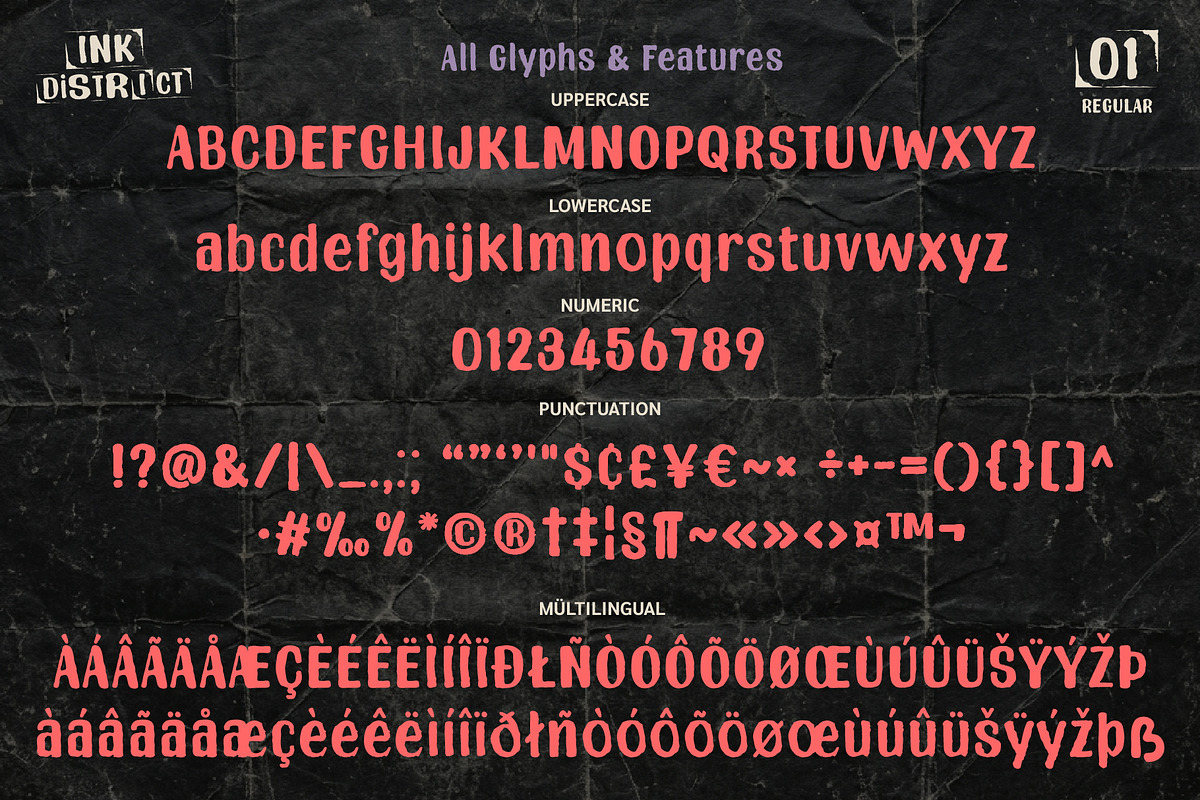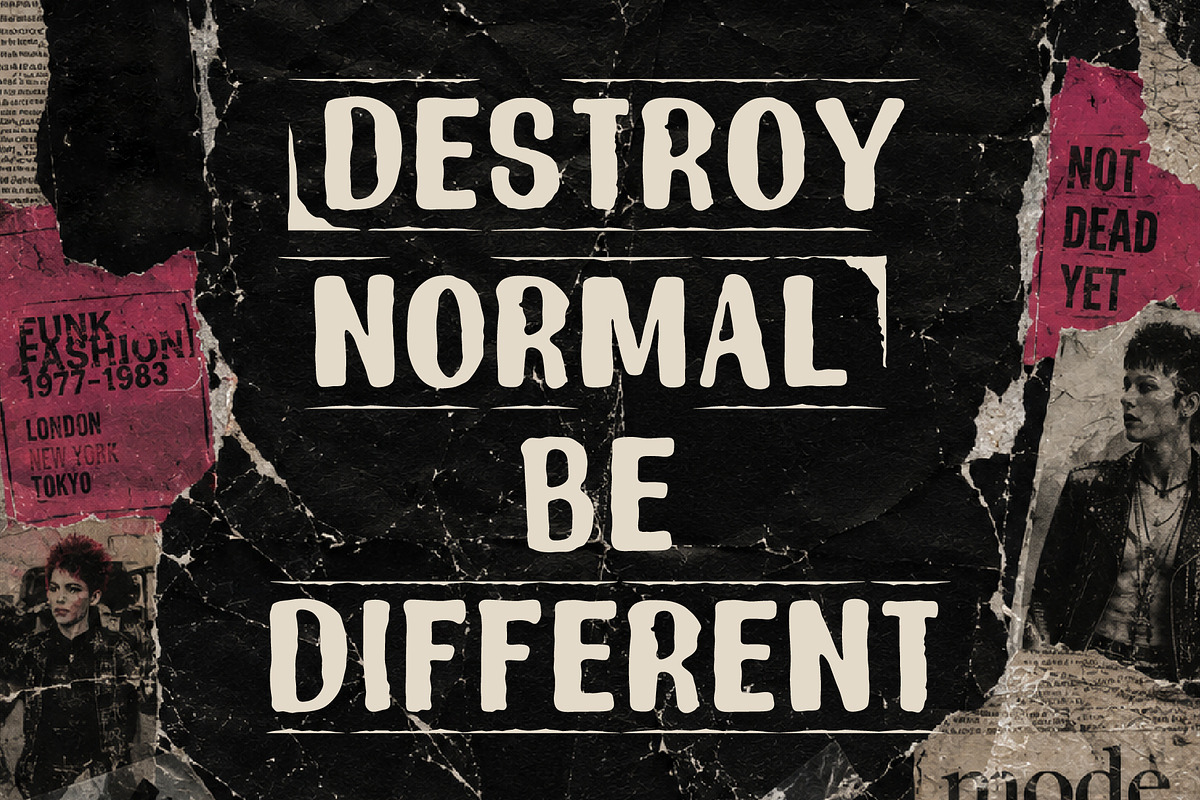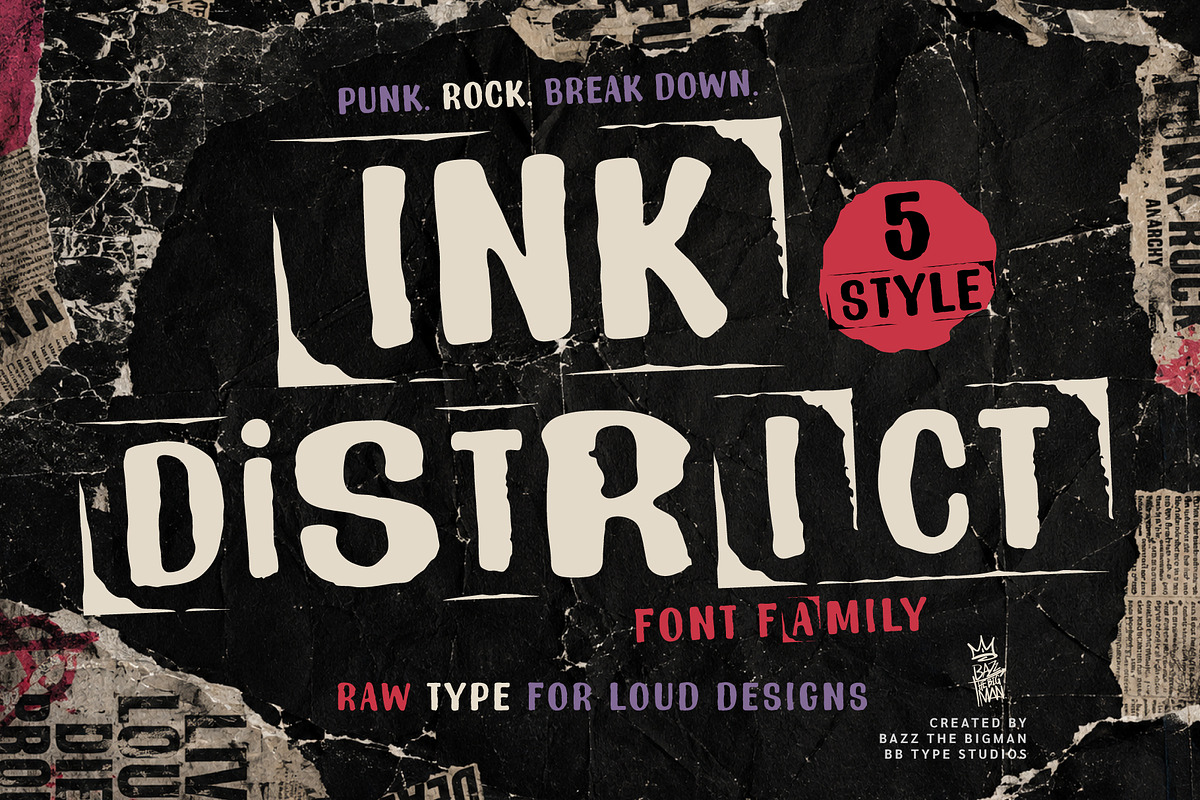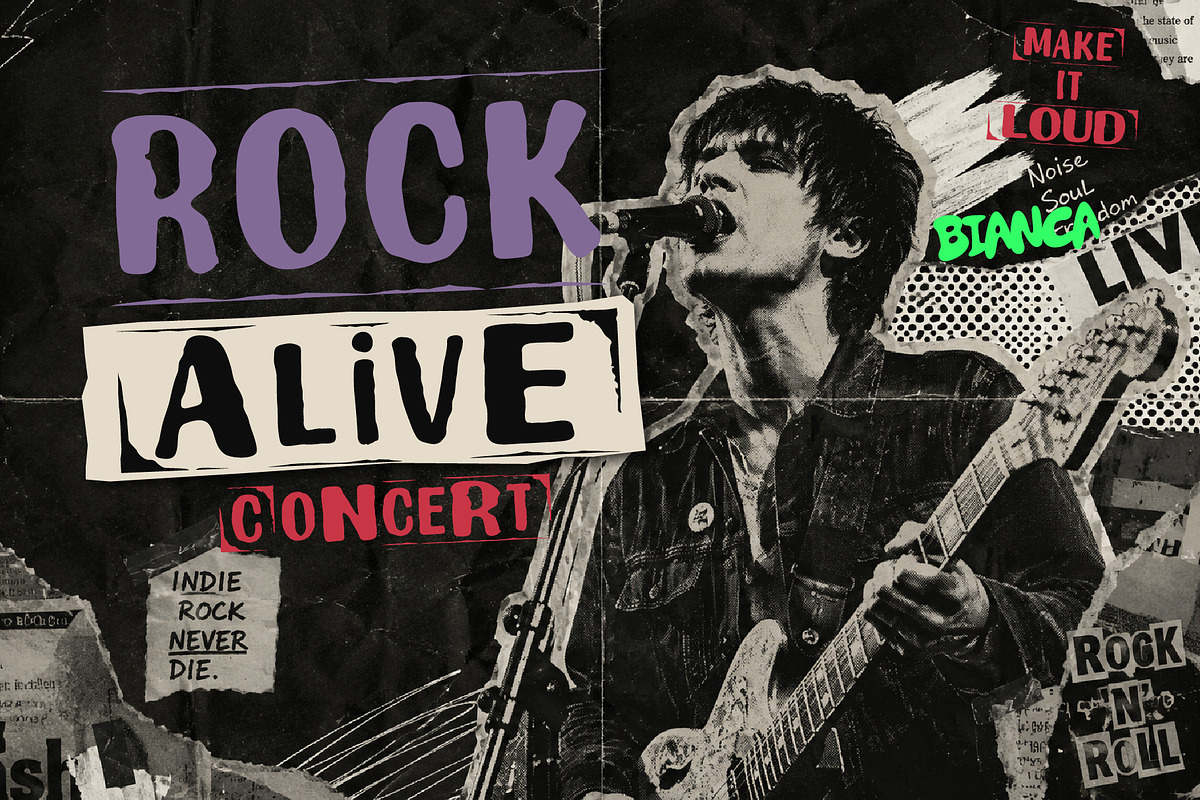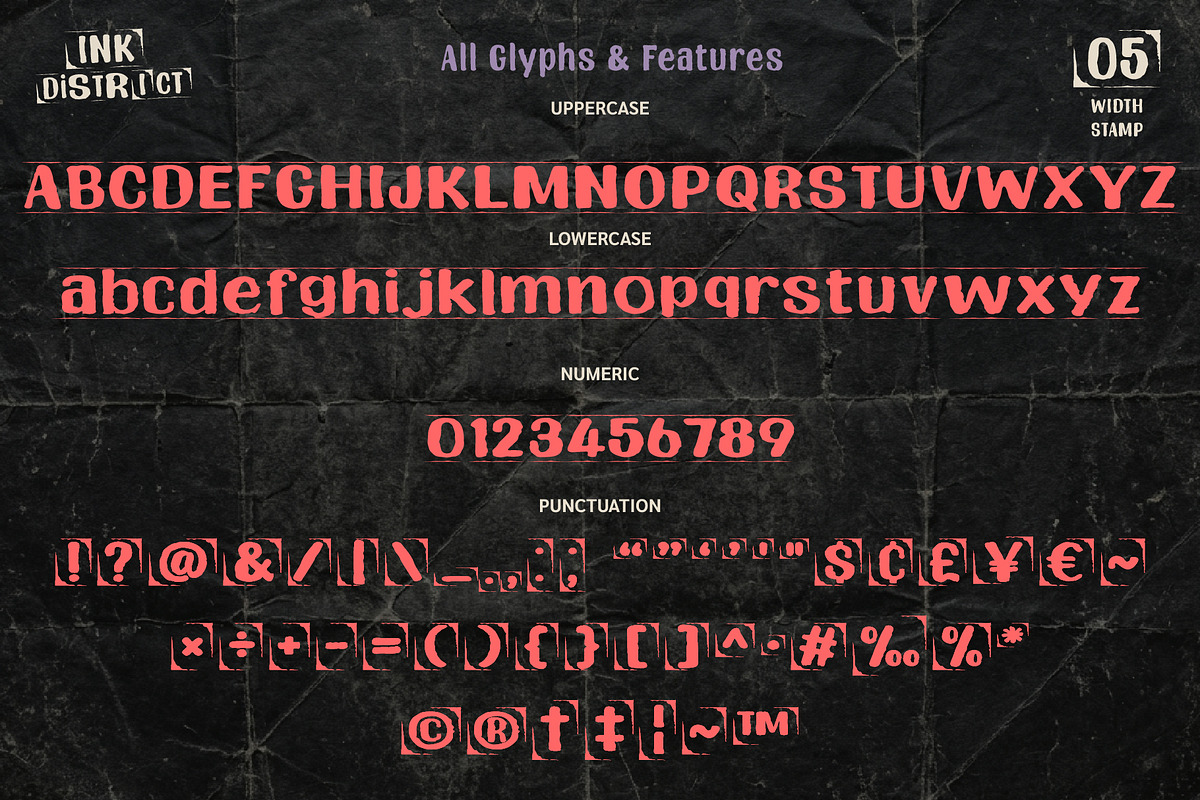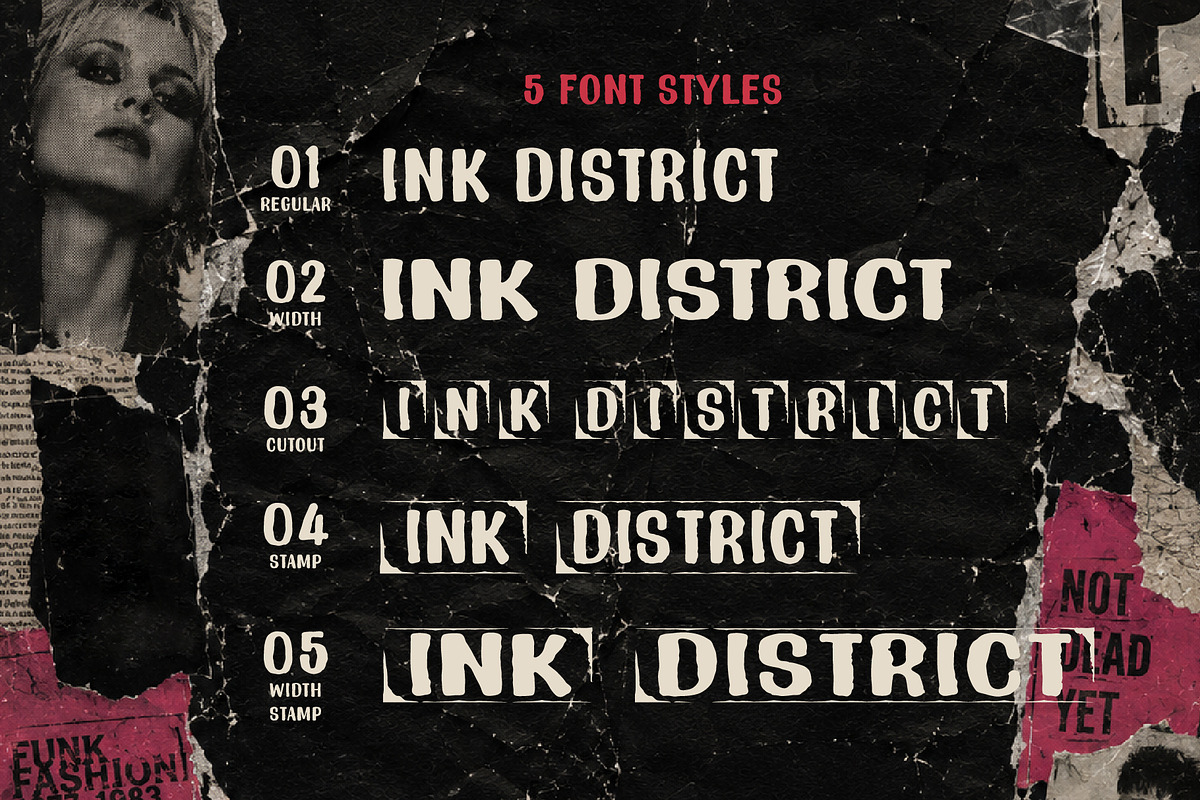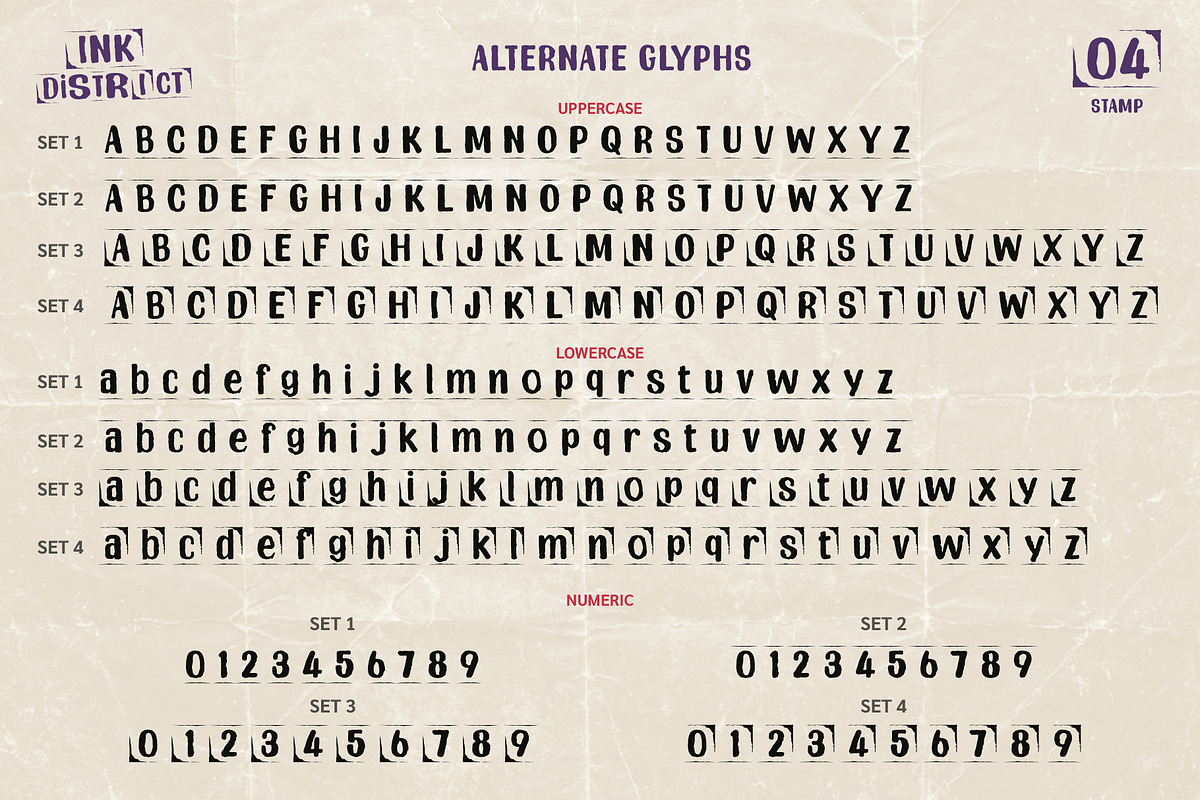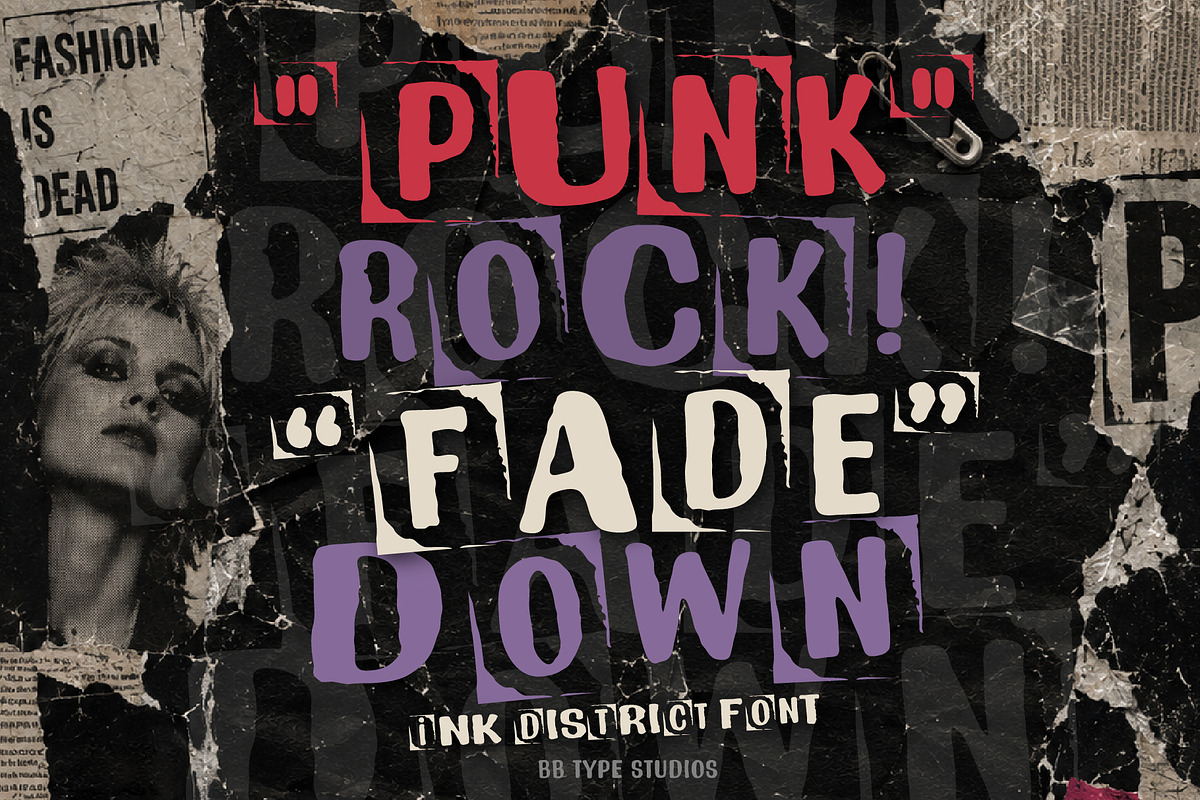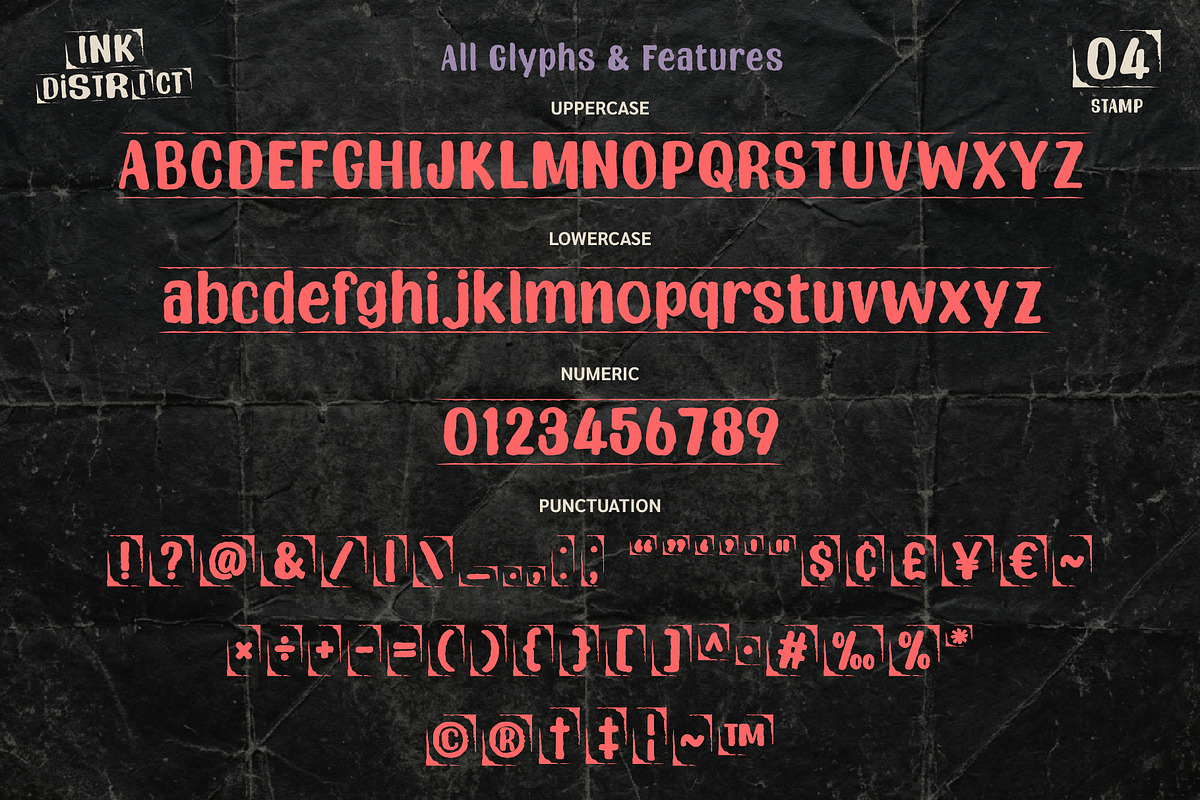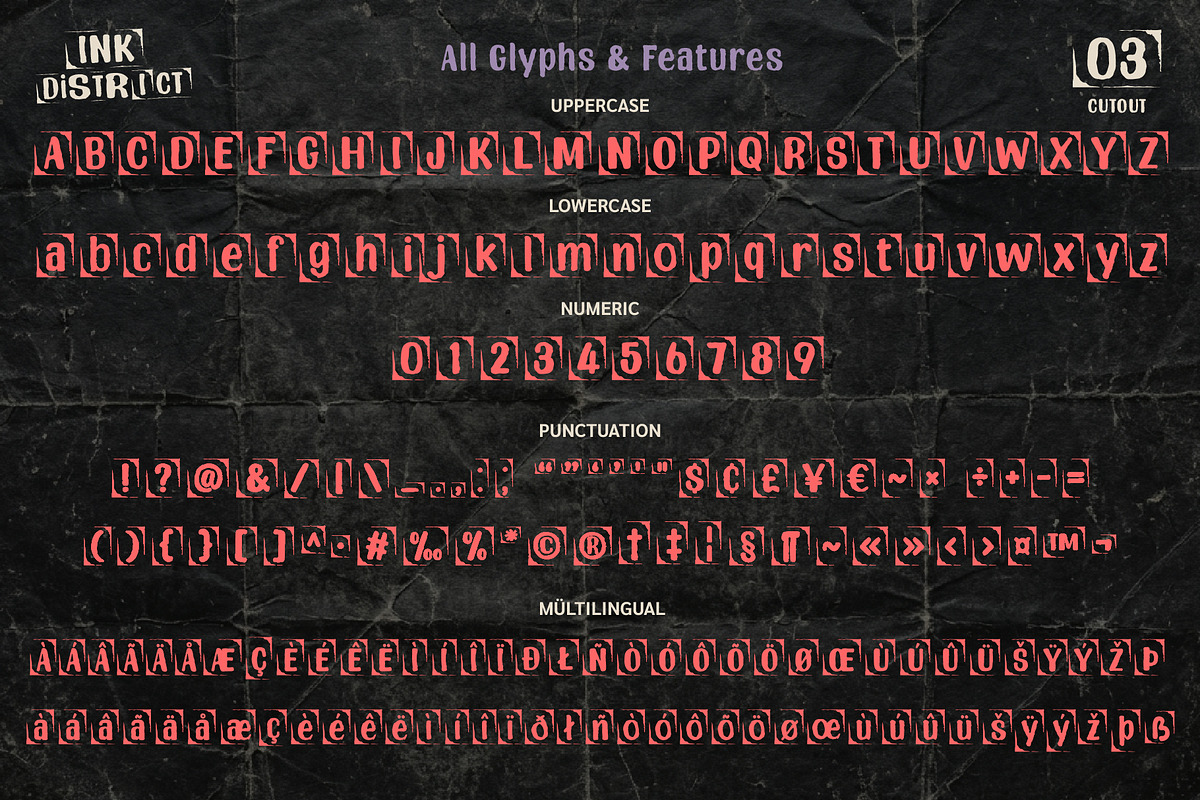
Ink District
INK DISTRICT is a raw punk-inspired display font family built for loud, rebellious, and fearless design.
Inspired by vintage punk fashion, underground zines, distressed print posters, and DIY street culture, this type system combines 5 unique styles that work powerfully on their own or together for layered, chaotic compositions.
From bold headline impact to stamped labels, ransom-note cutouts, and grunge editorial layouts, INK DISTRICT gives designers the freedom to create authentic punk visuals with attitude.
Perfect for poster design, album covers, streetwear branding, fashion campaigns, stickers, social media graphics, merchandise, editorial titles, and rebellious logo systems.
Included in the family:
Alternate Glyphs
Mix & Match Style System